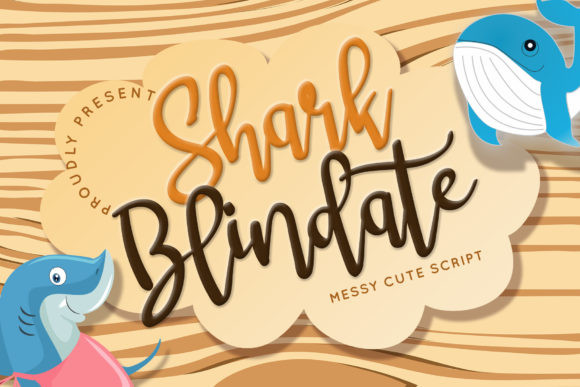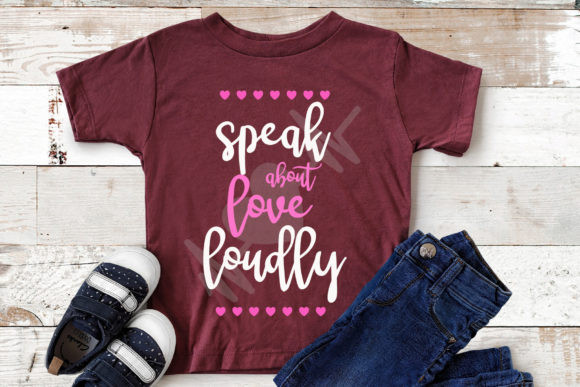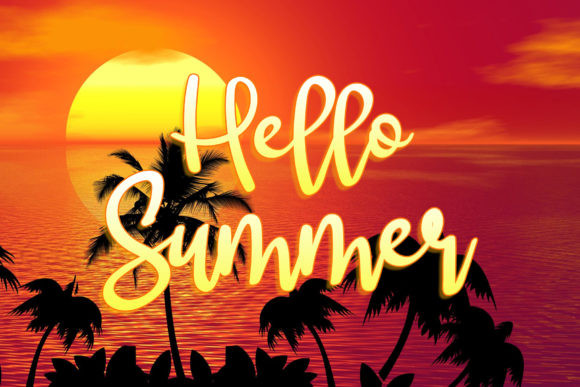
Shark Blindate Font
Shark Blindate is an relaxed handwritten font, masterfully designed to become a true favorite. It maintains its classy calligraphic influences while feeling contemporary and fresh. Fall in love with it and bring your projects to the highest levels!